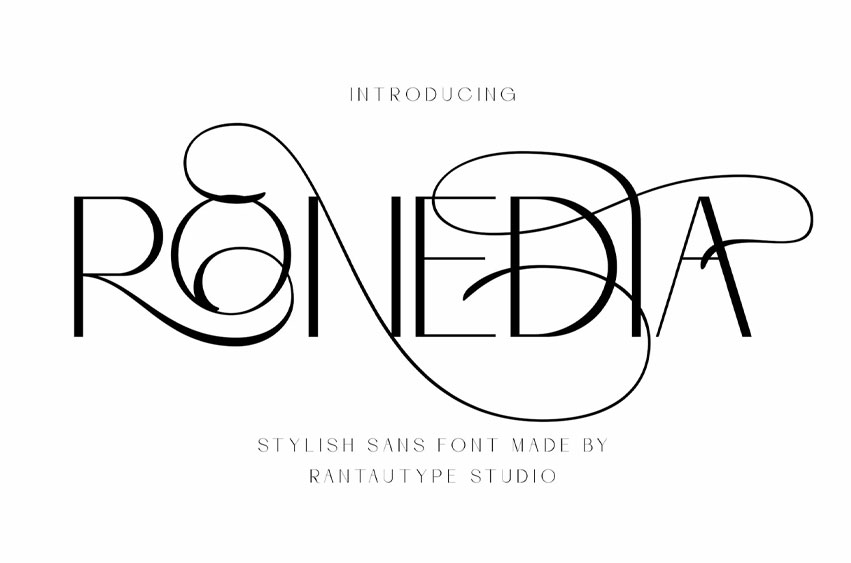
Ronedia Font is elegant sans font embrace grace and fashionable. Ronedia come with stylish alternate you can mix to create awesome design.
Ronedia is a perfectly choice for any creative endeavor, creating, modern, lifestyle design such as logotype, title, cover, branding, invitations, wedding designs, display and magazine, social media posts, advertisements, printed quotes, product packaging, corporate brand, product designs, labels, photography, watermarks, special events and any other project with elegant touch.